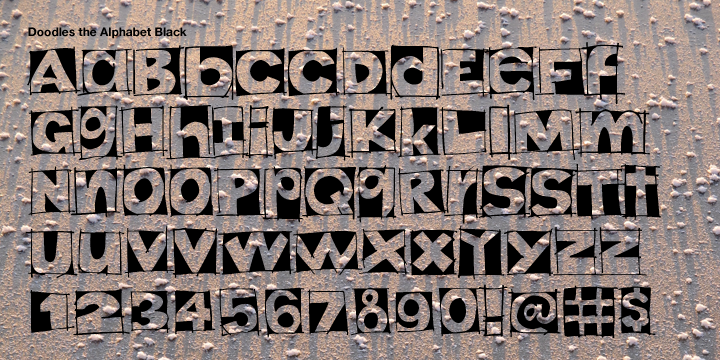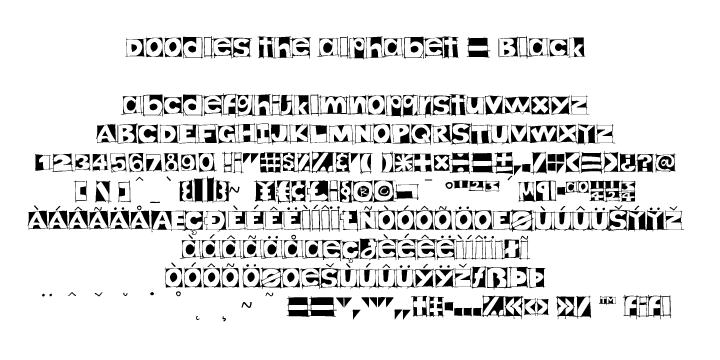
Doodles the Alphabet Black (1 font)
Doodles the Alphabet was designed to coordinate with Doodles the picture font. Doodles received honorable mention in U&lc’s First Annual Type Design Competition in the Picture Category.